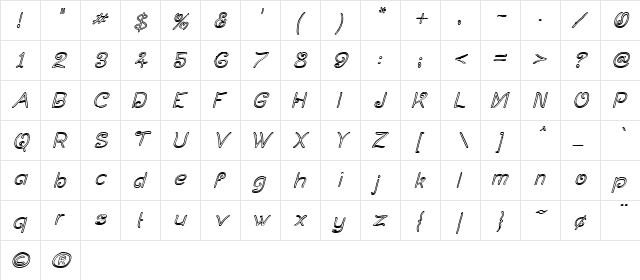
Curlmudgeon Hollow Italic Regular
Design Context for Curlmudgeon Hollow Italic Typeface
Curlmudgeon Hollow Italic takes a measured approach to typography — its balanced proportions and neutral character make it a reliable workhorse for both digital and print work. Its italic angle brings a sense of urgency and motion to the letterforms.